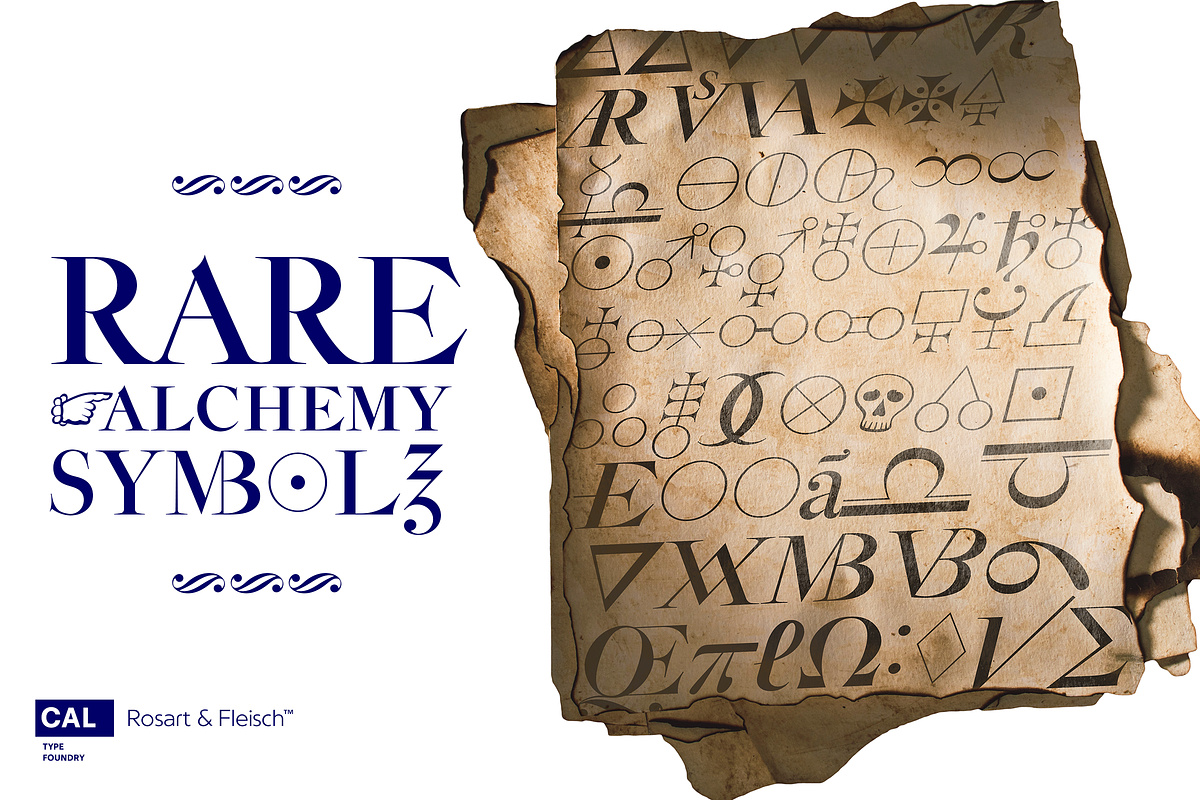
Rosart & Fleisch ALCHEMY Symbol Set
Alchemy Symbols - Turns A Design into Gold
part of the Rosart & Fleisch™ Hi Res Series
From labeling your cupboard of magical ingredients to getting one step closer to the golden goose, these rare alchemical symbols are a treasure trove of possibilities. Including:
- classic symbols for elements
- combinations
- medicinals
- chemistry
- mathematical symbols
- Includes music symbols for titling, as well as Verse and Response symbols.
Sourced from high resolution pictures and scans of the Enschede 1768 specimen, specimens of the 1800s, the 1908 and 1978 metal re-castings.